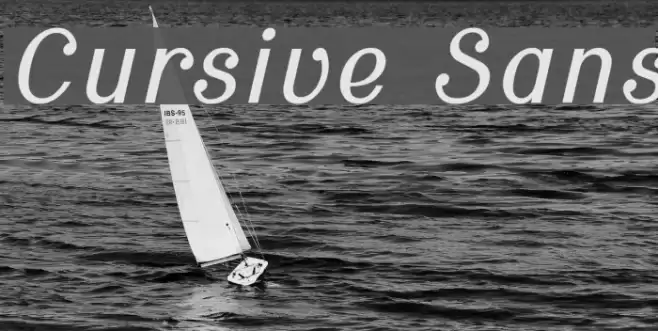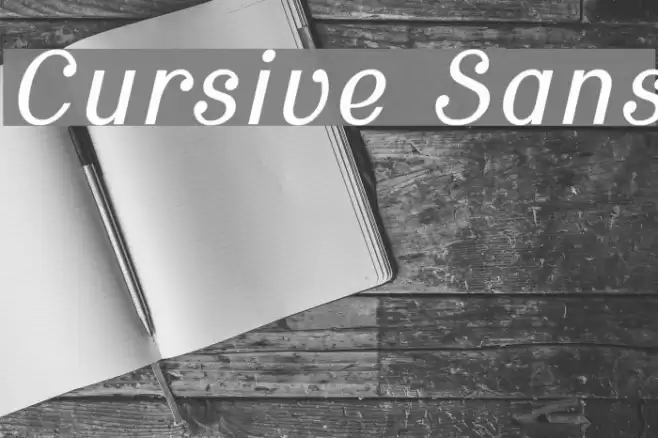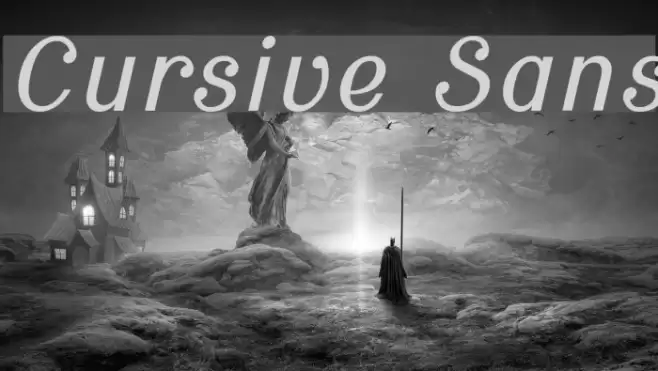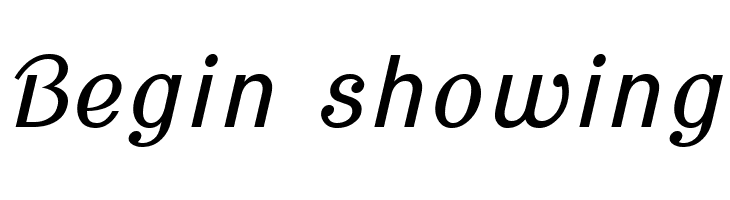
Cursive Sans Font
Cursive Sans Description
This font features a unique blend of cursive and sans-serif styles, offering a modern twist on traditional typography. The uppercase letters are elegantly slanted, providing a dynamic and fluid appearance. Lowercase characters maintain a consistent flow, enhancing readability while retaining a stylish flair. The numerals are distinct and clear, making them suitable for various applications. Special characters are well-integrated, ensuring versatility in design projects. The overall aesthetic is both sophisticated and approachable, making it ideal for creative and professional uses.
A modern cursive-sans font with elegant slants and fluid readability from Uncategorized fonts.
- Proposed Projects: Ideal for branding, invitations, editorial design, and digital media.
- Use Case: Headlines, Logos, Invitations